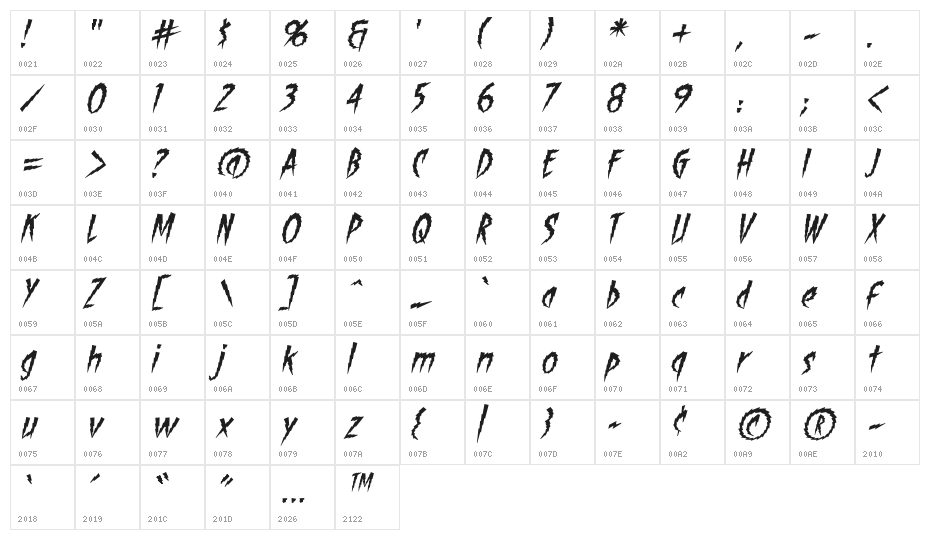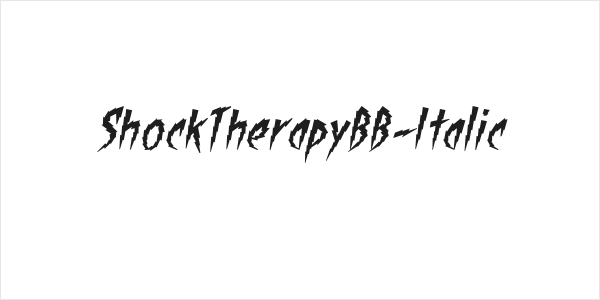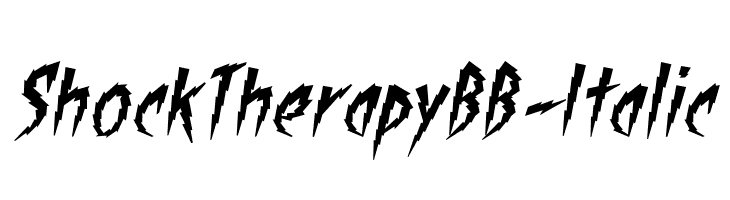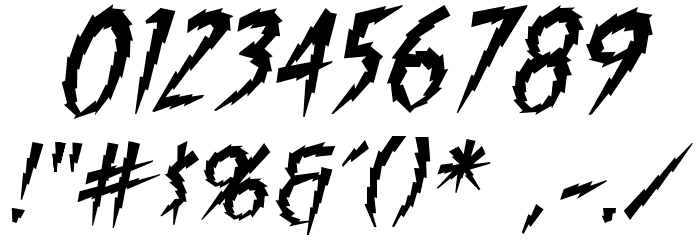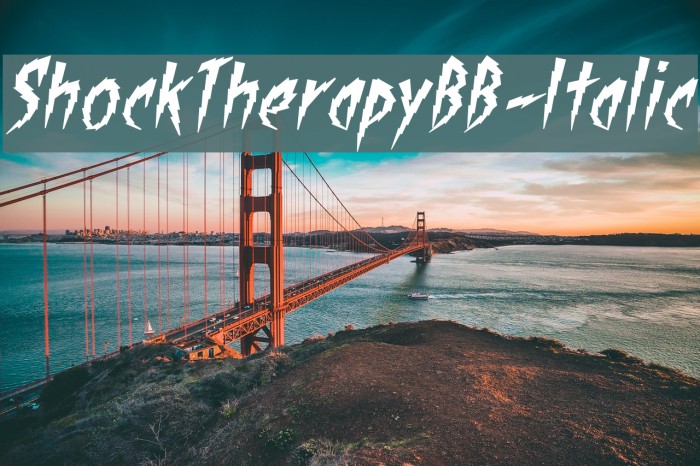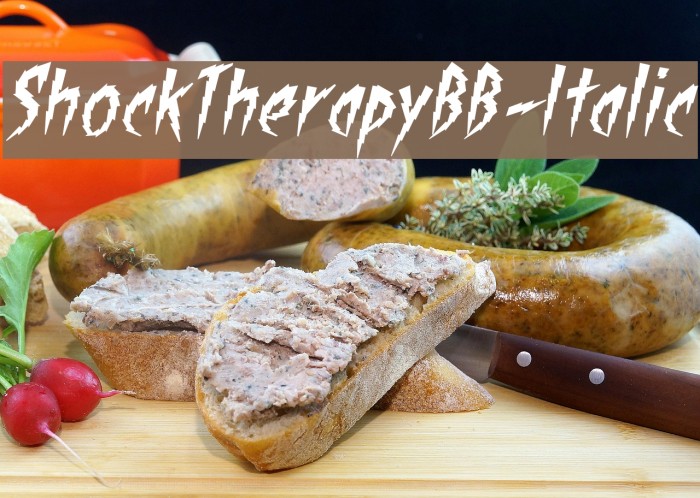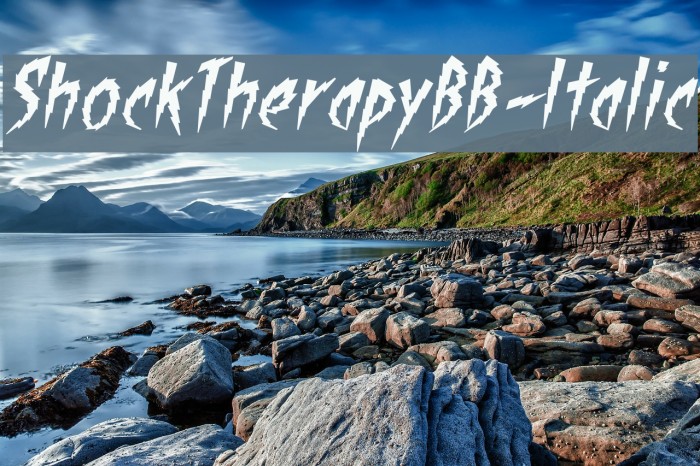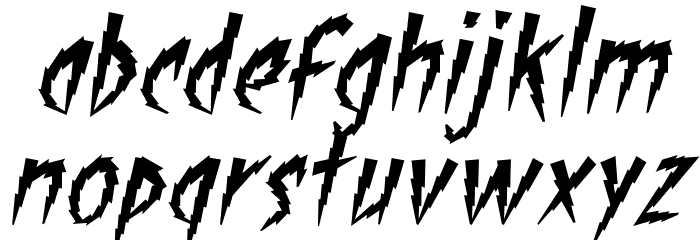
ShockTherapyBB-Italic Font
ShockTherapyBB-Italic Description
This font features a dynamic and jagged design, reminiscent of lightning bolts or electric shocks. The characters are sharply angled and convey a sense of energy and movement. The uppercase and lowercase letters maintain a consistent style, with exaggerated points and edges that create a visually striking appearance. The numbers and special characters follow the same energetic theme, making the font suitable for attention-grabbing designs. Its unique style is perfect for projects that require a bold and electrifying aesthetic.
| Overall Style | Modern, Energetic |
| Proposed Projects | Ideal for music album covers, event posters, video game graphics, and branding for edgy or high-energy products. |